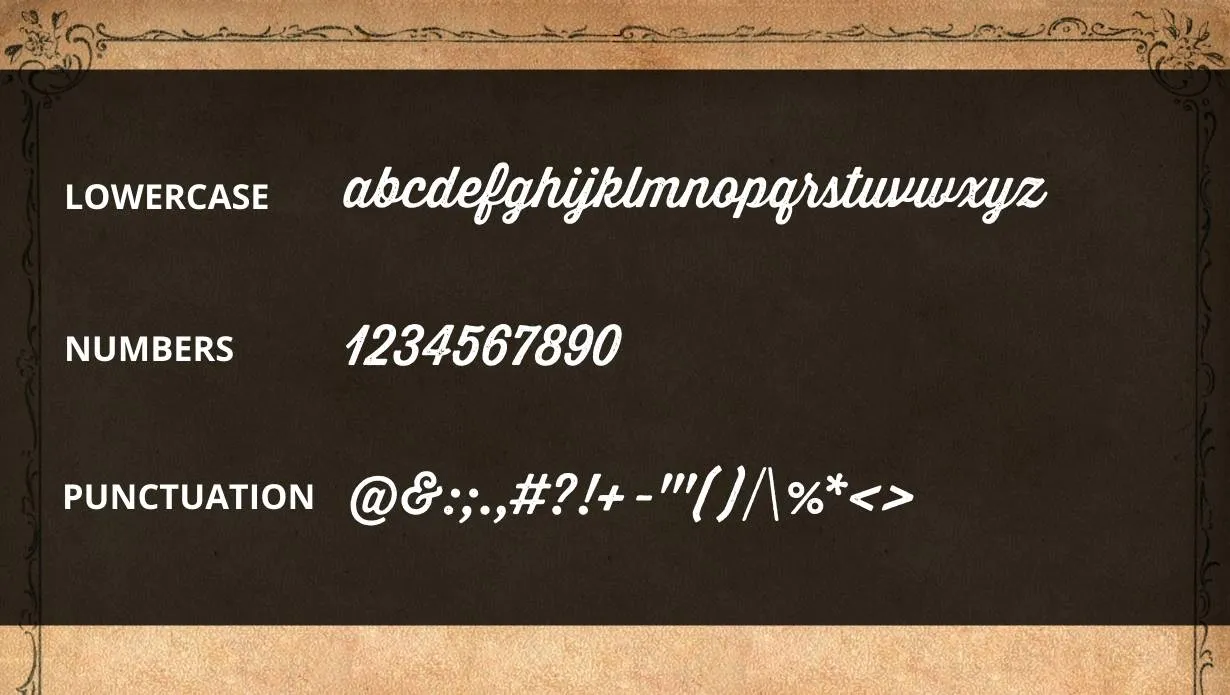
Thirsty Rough Font is a great choice for those who are looking for a rustic or distressed look. This font features rough edges and imperfections, giving it a unique charm. If you’re wanting to add some personality to your designs, the Thirsty Rough Font is a great option.
So, if you’re looking for a rustic, distressed font with a lot of personalities, the Font is a great option. This regular style is also best for its pairing ability that it can make a very elegant pair with Neutra Text Font.
- Thirsty RoughLight
- Thirsty Rough Light One
- Thirsty Rough Light Two
- Thirsty Rough Light three
- Thirsty Rough Light Shadow
- Thirsty Rough Regular
- Thirsty Rough One
View of Thirsty Rough Font
| Name | Thirsty Rough Font |
| Designer | Ryan Martinson |
| Style | Brush |